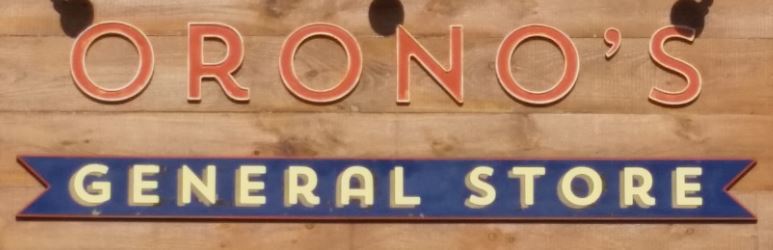
I’ve tried the matcherator here and a few others with no luck. It’s the A and the R that look unique to me. I would appreciate any help! Thank you!
I don’t believe this is it but it is really close:
I think this actually may be it: